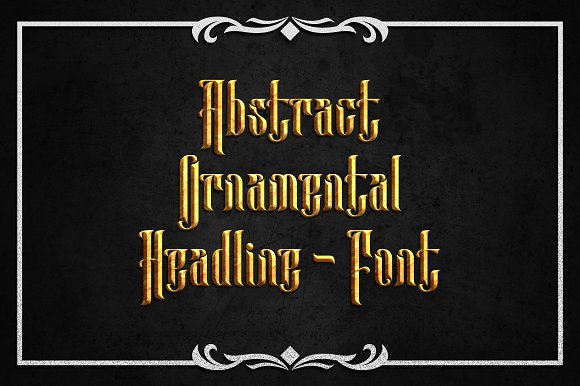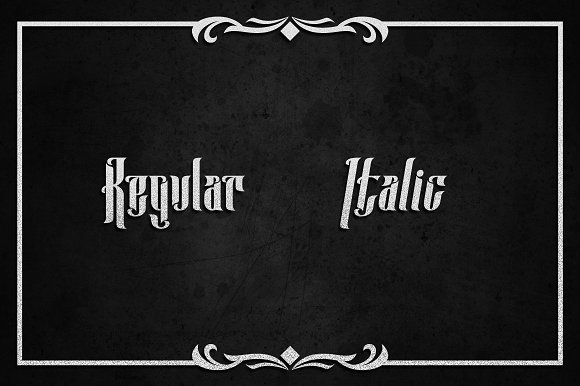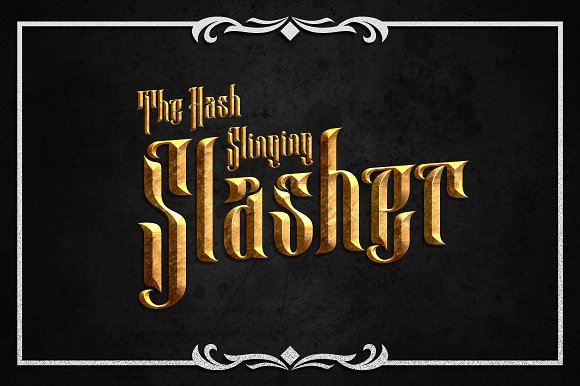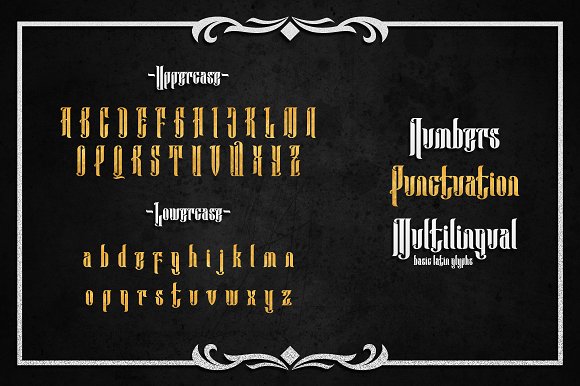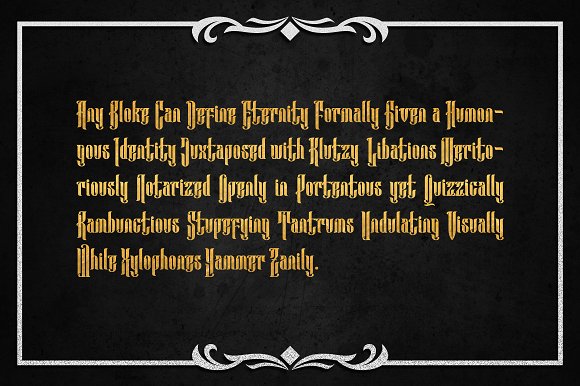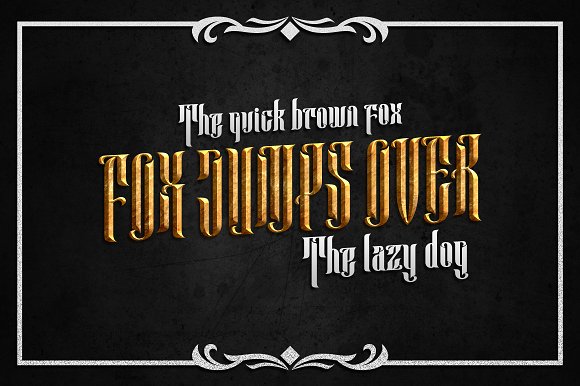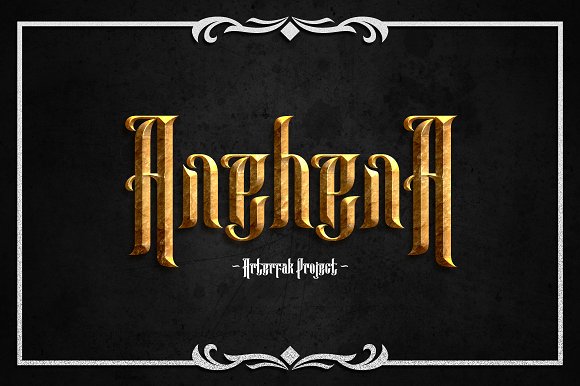
Anehena Font: A Strong Blackletter Typeface for the Abstractly-Minded
In the world of typography, fonts play a crucial role in conveying messages, evoking emotions, and creating visual identities. For designers and crafters seeking a unique and striking typeface, the Anehena Font is an excellent choice. Developed by the Arterfak Project, Anehena is a strong blackletter font that embodies an abstract-ornamental style, perfect for those with an affinity for the unconventional.
Design and Features
Anehena’s design is characterized by its bold, intricate, and ornate letterforms, which are sure to make a statement in any design project. The font comes in two variants: regular and italic, providing versatility and flexibility for various applications. Its abstract nature makes it an ideal choice for designers looking to add a touch of sophistication and elegance to their work.
One of the standout features of Anehena is its exceptional legibility, even at larger sizes. This makes it perfect for headlines, titles, displays, and other attention-grabbing applications. The font’s blackletter style, with its dramatic flourishes and ornate details, adds a level of refinement and luxury to any design.
Use Cases
Anehena’s versatility makes it suitable for a wide range of design projects, including:
- Headlines and Titles: Anehena’s bold and ornate letterforms make it perfect for creating eye-catching headlines and titles that demand attention.
- Display Typography: The font’s abstract-ornamental style makes it an excellent choice for display typography, adding a touch of elegance and sophistication to any design.
- Branding and Identity: Anehena’s unique and striking design makes it an excellent choice for branding and identity projects, helping to create a lasting impression on customers and clients.
- Packaging and Advertising: The font’s bold and attention-grabbing design makes it perfect for packaging and advertising applications, where standing out from the crowd is crucial.
Why Choose Anehena?
With so many fonts available, why choose Anehena? Here are a few compelling reasons:
- Unique Design: Anehena’s abstract-ornamental style sets it apart from more traditional fonts, providing a fresh and distinctive look.
- High Legibility: The font’s exceptional legibility makes it perfect for larger sizes, ensuring that your message is conveyed clearly and effectively.
- Versatility: Anehena’s two variants (regular and italic) provide flexibility and versatility for various design applications.
Tips for Using Anehena
To get the most out of Anehena, here are a few tips:
- Experiment with Sizes: Anehena’s design looks great at larger sizes, so don’t be afraid to experiment with different sizes to find the perfect fit for your project.
- Pair with Other Fonts: Anehena pairs well with other fonts, so try combining it with a sans-serif or script font to create visual interest.
- Use for Emphasis: Anehena’s bold and attention-grabbing design makes it perfect for emphasis, so use it to draw attention to key messages or calls-to-action.
In conclusion, the Anehena Font is a strong blackletter typeface that offers a unique and striking design, perfect for designers and crafters seeking an abstract-ornamental style. With its exceptional legibility, versatility, and ease of use, Anehena is an excellent choice for a wide range of design projects, from headlines and titles to branding and packaging. Whether you’re looking to make a statement or add a touch of sophistication to your design, Anehena is a font that’s sure to impress.